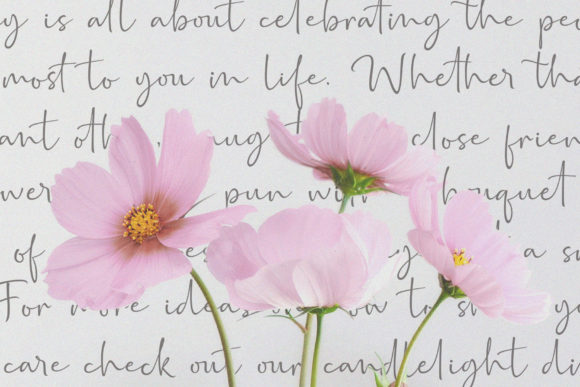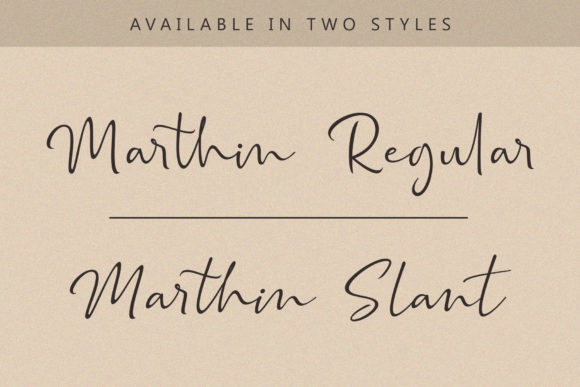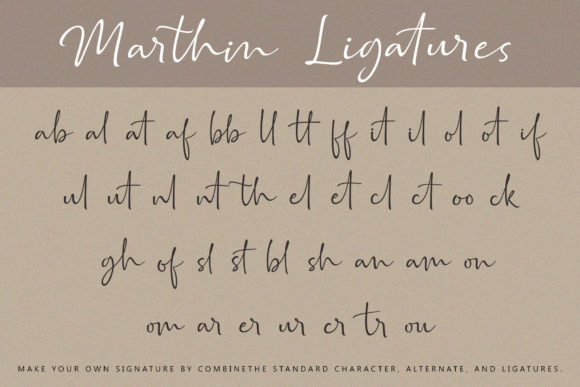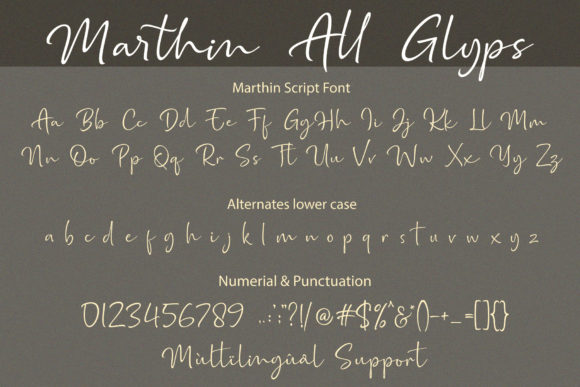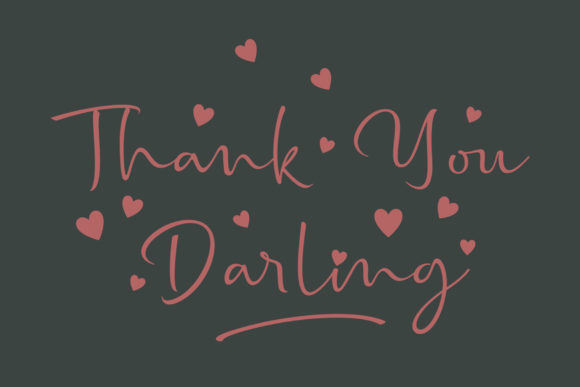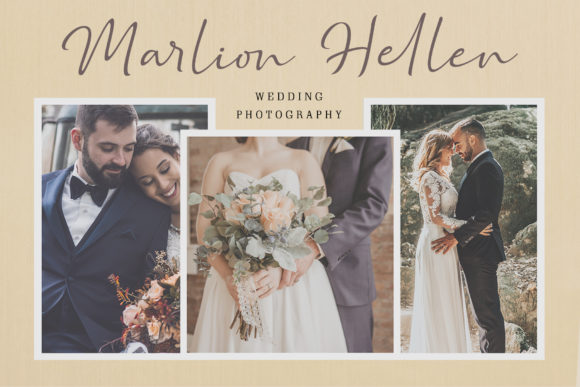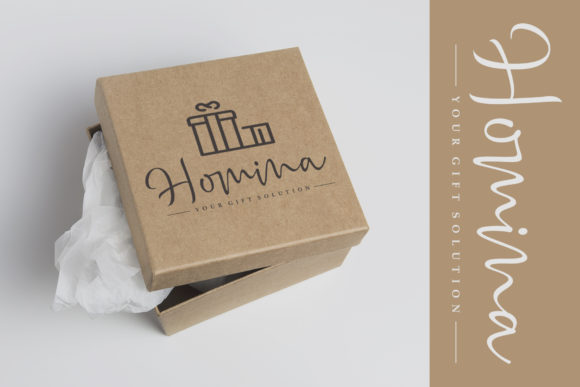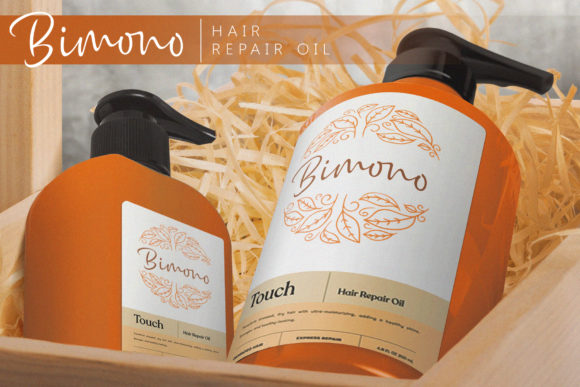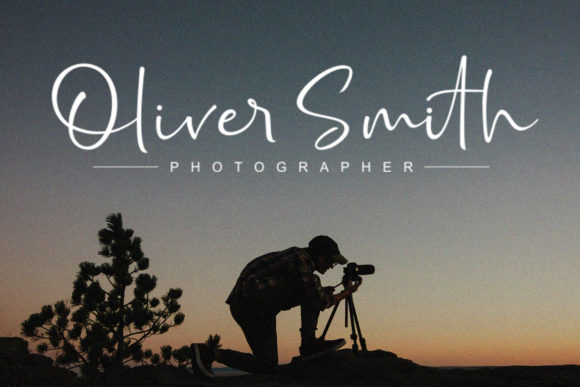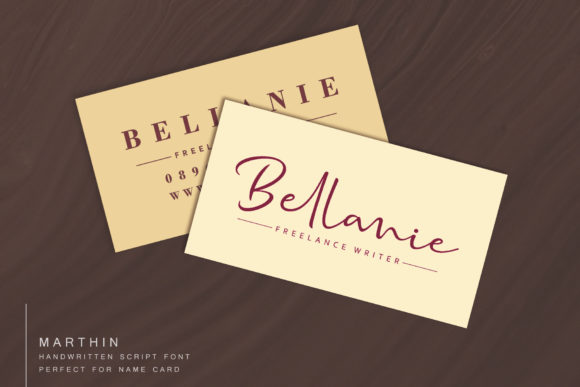
Marthin Font
About Marthin Font
Marthin is a fun and simple handwritten font with an incredibly authentic vibe. It will turn any design project into a piece of art!